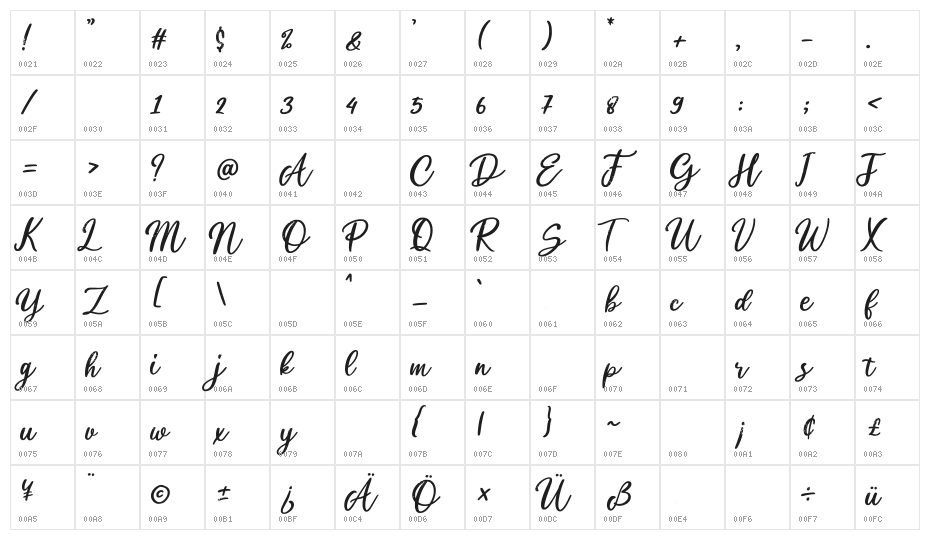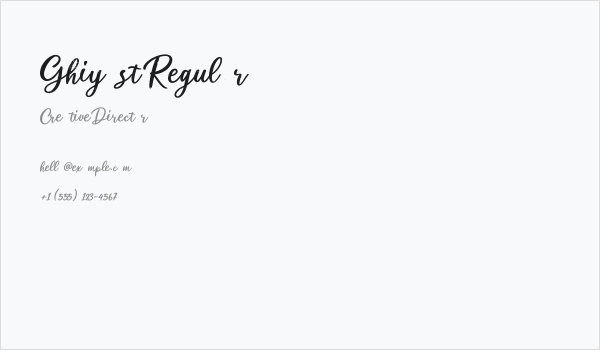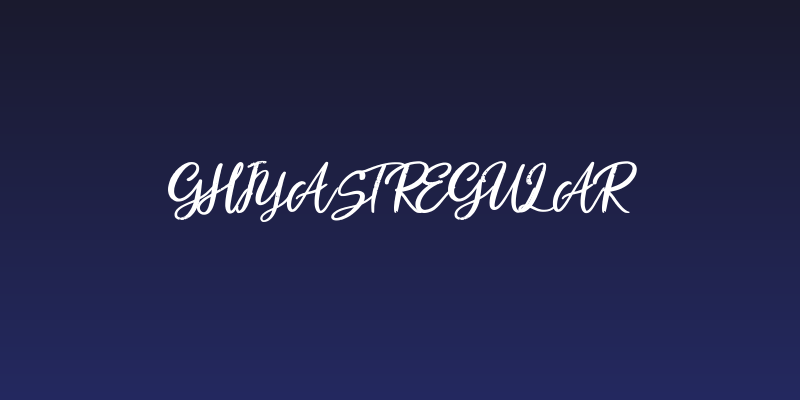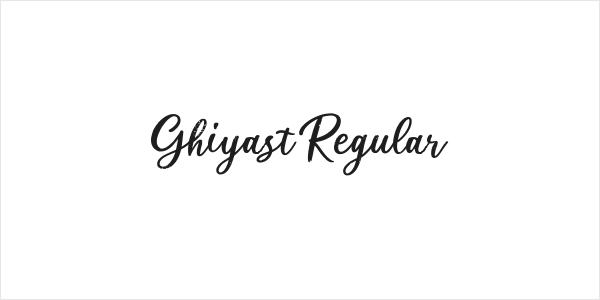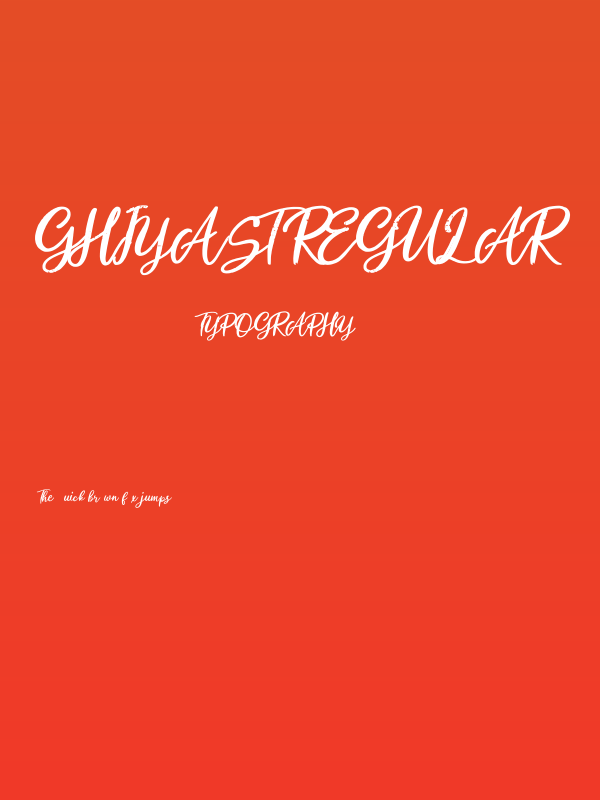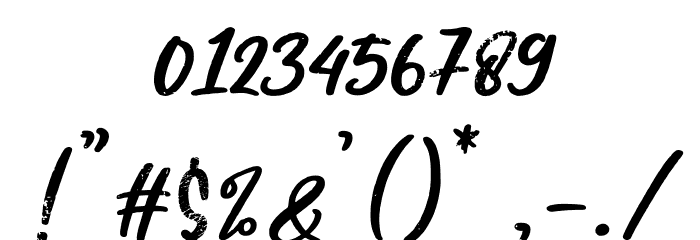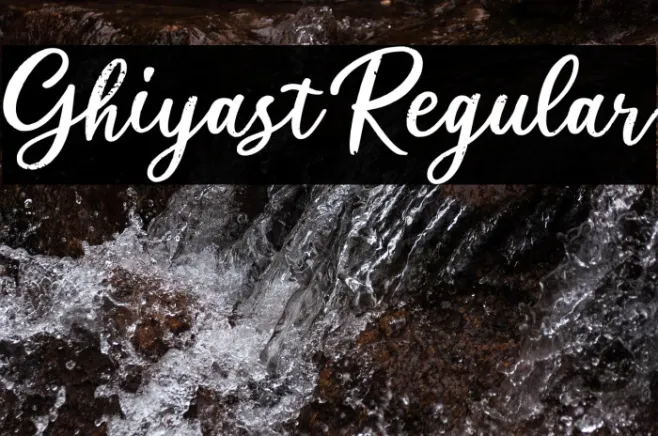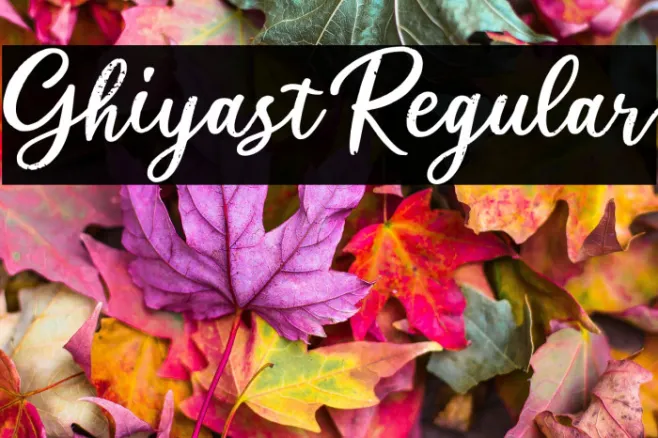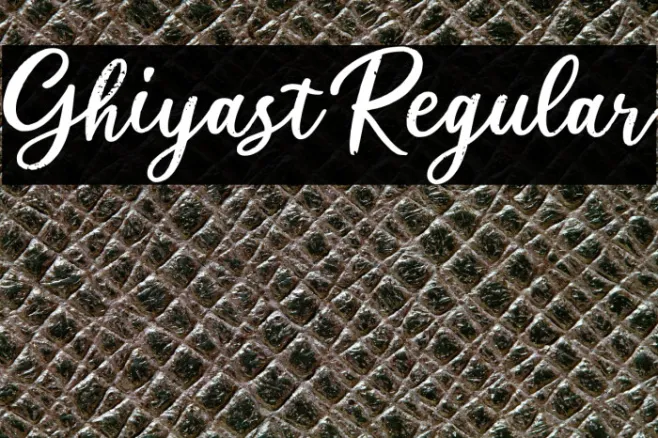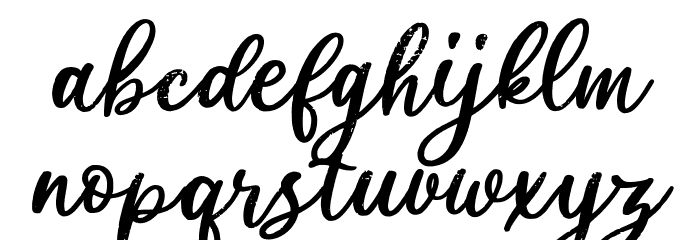
Ghiyast Regular Font
Ghiyast Regular Description
This font features a dynamic and expressive script style, characterized by its fluid, cursive letterforms that convey a sense of elegance and creativity. The strokes are smooth and flowing, with a slight slant that enhances its handwritten appearance. The uppercase letters are bold and prominent, while the lowercase letters maintain a consistent rhythm, adding to the overall harmony of the design. The numerals and special characters are crafted with the same attention to detail, ensuring a cohesive look across all elements. This font's artistic flair makes it suitable for projects that require a personal touch.
| Proposed Projects | Ideal for wedding invitations, greeting cards, branding, and artistic projects. |